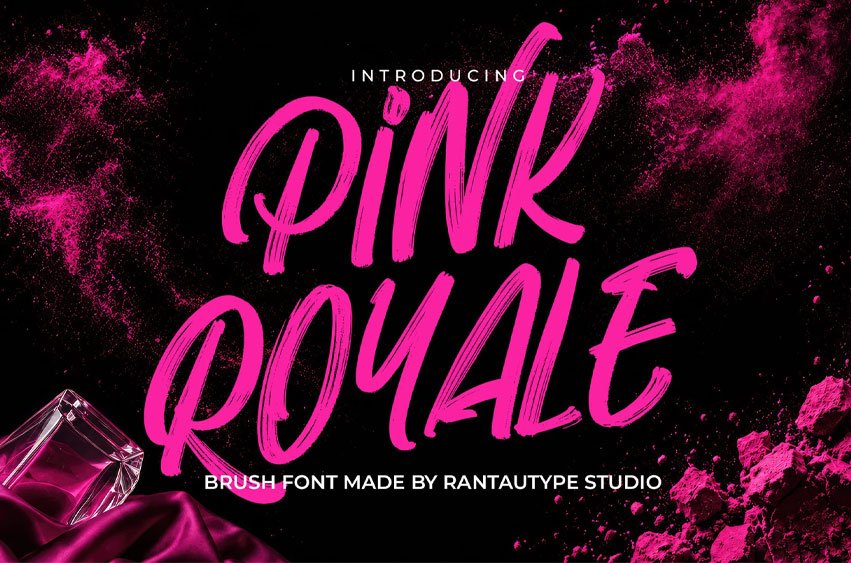
Pink Royale Font is Brush font with energetic. bold and modern vibes.
Pink Royale is a perfectly choice for any creative endeavor, creating, modern, lifestyle design such as logotype, title, cover, branding, display and magazine, social media posts, advertisements, printed quotes, product packaging, corporate brand, product designs, labels, photography, watermarks, special events and any other project with urban touch.